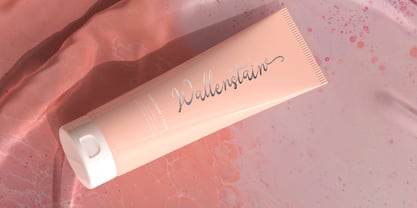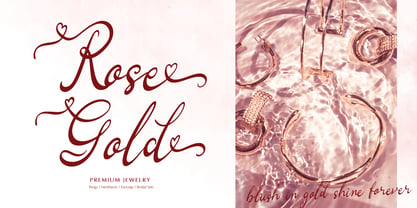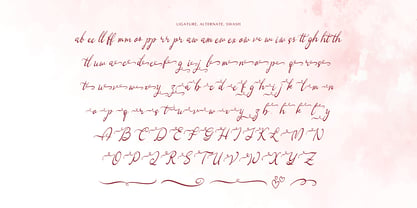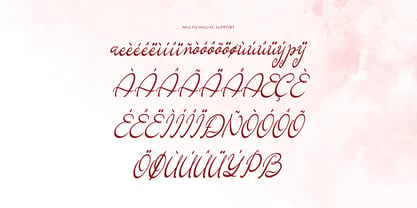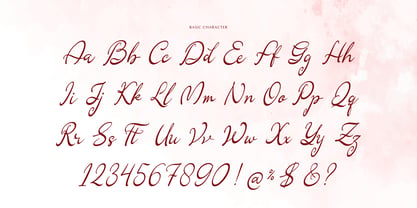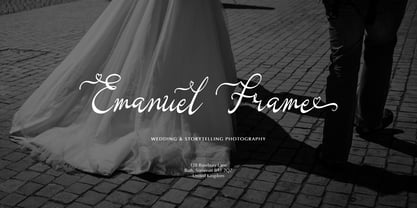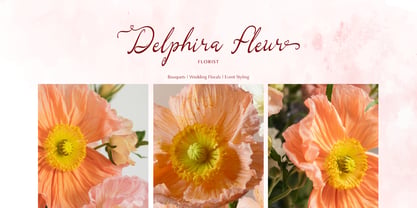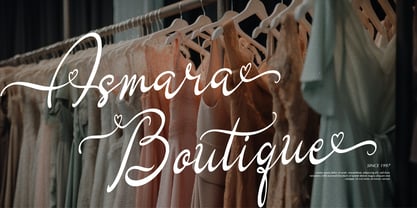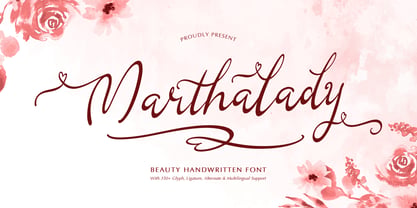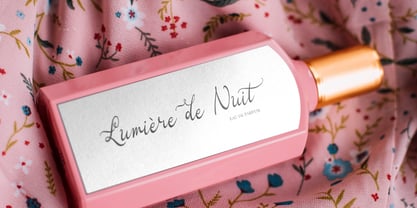
Marthalady
by Tini Fitriani
The Marthalady Font Family was designed by and published by Tini Fitriani. Marthalady contains 2 styles and family package options. More about this family
Marthalady | Beauty Handwritten Font, from Gracetypestudio, suitable for any projects such as: logos, branding projects, homeware designs, product packaging, mugs, quotes, posters, shopping bags, t-shirts, book covers, name card, invitation cards, greeting cards, label, photography, watermark, special events, and all your other lovely projects that need a Beauty Handwritten Font taste.
• Regular and Italic
• Alternate and Ligature
• Fonts include multilingual support